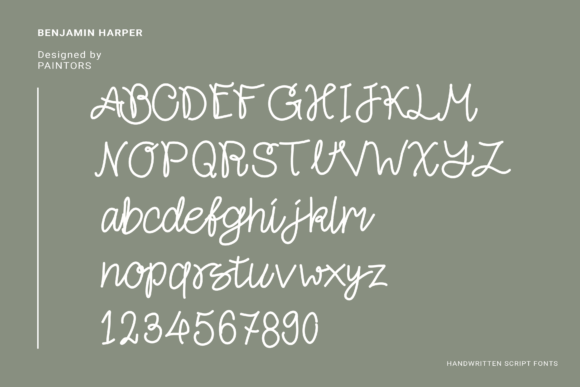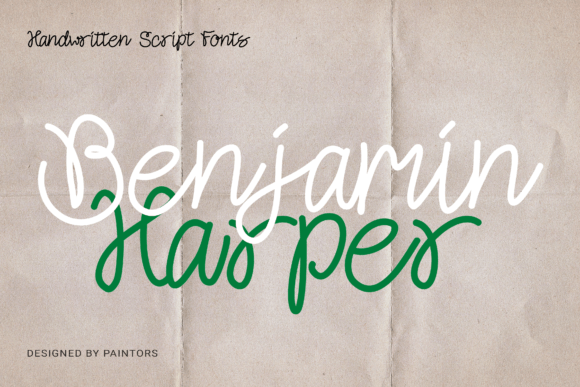
The Warmth of Benjamin Harper Font: A Designer’s New Best Friend
I still remember the project like it was yesterday. I was working on a custom wedding invitation for a lovely couple, and I was determined to get the font just right. The invitation needed to feel warm, intimate, and personal, but I was struggling to find the perfect match. That’s when I stumbled upon Benjamin Harper Font, and it was love at first sight! 💕
Benjamin Harper is a sweet and casual handwritten font that exudes warmth and approachability. Its gentle curves and soft lines create a welcoming tone, making it perfect for heartfelt messages, invitations, and personal touches. In this article, I’ll share my experience with Benjamin Harper Font, its features, and how to make the most of it in your designs.
• ✨ The warm and inviting feel of the font, perfect for creating a cozy atmosphere in designs.
• ✅ The font’s versatility – it works beautifully for both digital and print projects.
• 💬 The clear and readable letters, making it ideal for body text and captions.
• 🎨 The range of OpenType features, including glyphs and stylistic alternates, allowing for creative experimentation.
⚠️ While Benjamin Harper Font is incredibly versatile, it’s not the best fit for very formal or corporate designs. Its casual nature might not convey the level of professionalism required for such projects.
🤔 Some users might find the font’s letter spacing a bit too generous, which could affect the overall flow of text in certain contexts.
The Designer Inspiration Behind Benjamin Harper Font
Benjamin Harper Font was designed with the intention of creating a warm and inviting typeface that feels like a warm hug. The designer aimed to craft a font that would be perfect for personal and creative projects, where a touch of warmth and personality is desired.
Q: What type of projects is Benjamin Harper Font best suited for?
A: Benjamin Harper Font is ideal for personal and creative projects, such as invitations, greeting cards, and social media graphics.
Q: Is Benjamin Harper Font suitable for body text?
A: Yes, Benjamin Harper Font is clear and readable, making it suitable for body text, but it might not be the best choice for very long documents or formal texts.
Q: Can I use Benjamin Harper Font with other fonts?
A: Absolutely! Benjamin Harper Font pairs well with a variety of fonts, so feel free to experiment and find the perfect combination for your design.